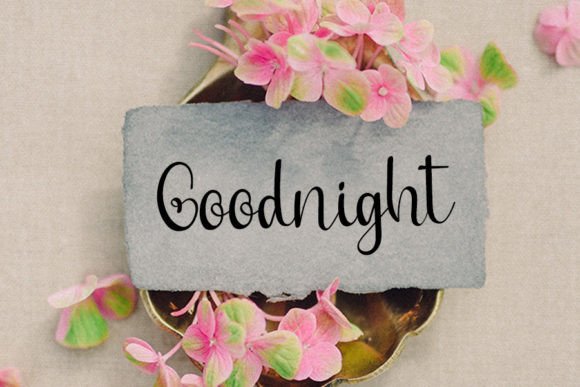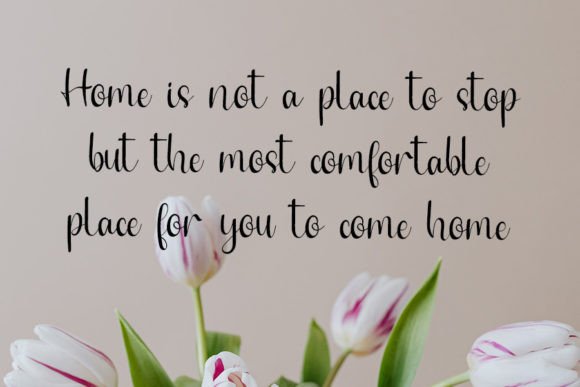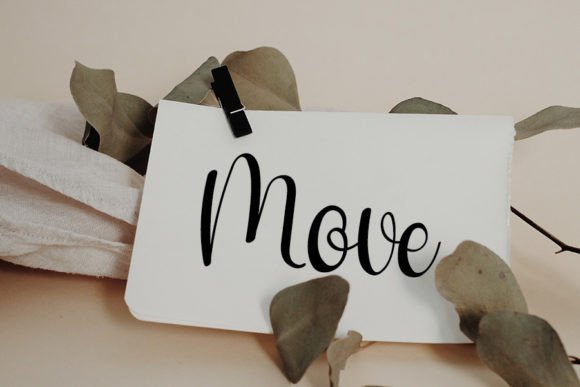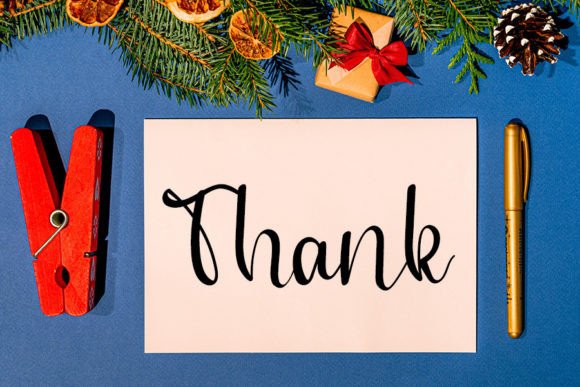
Discover the Elegance of Another Font: Elevate Your Designs with a Timeless Touch
In the vast universe of typography, where fonts are the silent yet powerful storytellers of design, “Another Font” emerges as a beacon of elegance and sophistication. Described as a neat and beautiful handwritten font with an elegant touch, Another Font is not just a typeface; it’s an experience. It’s perfect for designers and crafters looking to infuse their projects with a distinct and timeless style. In this article, we’ll dive into the world of Another Font, exploring its unique characteristics, the creative possibilities it offers, and why it has become a favorite among design enthusiasts.
The Distinctive Charm of Another Font
Another Font boasts an incredibly distinct style that sets it apart from the myriad of fonts available today. Its elegance lies in its simplicity and the fluidity of its strokes, which convey a sense of grace and refinement. This handwritten font is not just about aesthetics; it’s about evoking emotions and adding a personal touch to any project. Whether you’re working on a branding campaign, crafting a heartfelt invitation, or designing a captivating poster, Another Font brings a level of sophistication that is hard to match.
The versatility of Another Font is one of its most compelling features. Its elegant and timeless design makes it suitable for a wide range of applications. For designers working on:
- Branding and Logos: Another Font can help create a memorable and luxurious brand identity.
- Wedding and Event Invitations: Its elegant touch adds a personal and sophisticated feel to your invitations.
- Posters and Flyers: Stand out with a font that captures attention and conveys your message with style.
- Digital and Print Media: From blogs and social media posts to magazines and books, Another Font adapts seamlessly across different mediums.
Why Designers and Crafters Love Another Font
The love affair with Another Font can be attributed to several factors:
- Timeless Appeal: Unlike trendy fonts that may quickly go out of style, Another Font’s classic elegance ensures it remains relevant.
- Emotional Connection: The personal and human touch of this handwritten font helps create an emotional connection with the audience.
- Versatility: It pairs well with a variety of design elements, making it a flexible choice for diverse projects.
- Ease of Use: Another Font is designed to be user-friendly, making it accessible for both beginners and seasoned designers.
How to Make the Most of Another Font
Another Font is more than just a typeface; it’s a design companion that brings elegance, sophistication, and a personal touch to any project. Its timeless style, versatility, and the emotional connection it fosters make it a beloved choice among designers and crafters. Whether you’re looking to create spectacular designs that stand out or simply want to add a touch of elegance to your work, Another Font is an excellent choice. Embrace its beauty, and let it elevate your designs to new heights of creativity and expression.